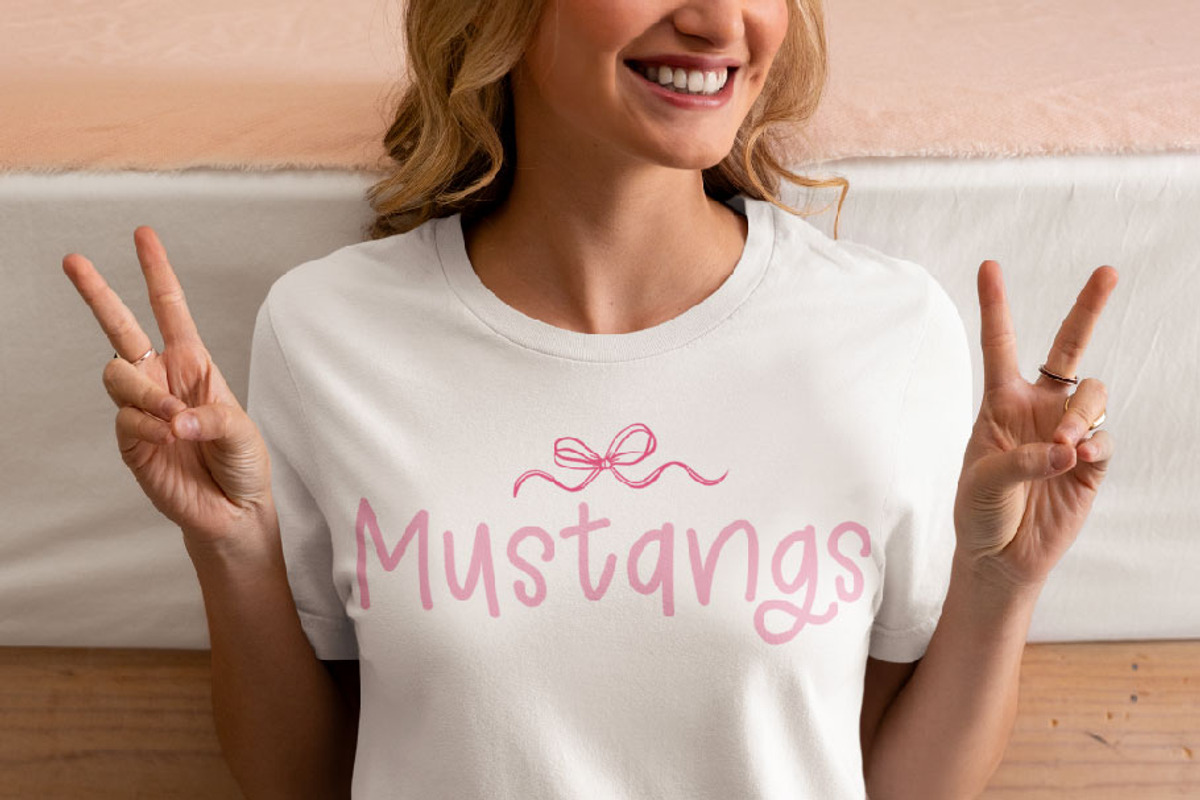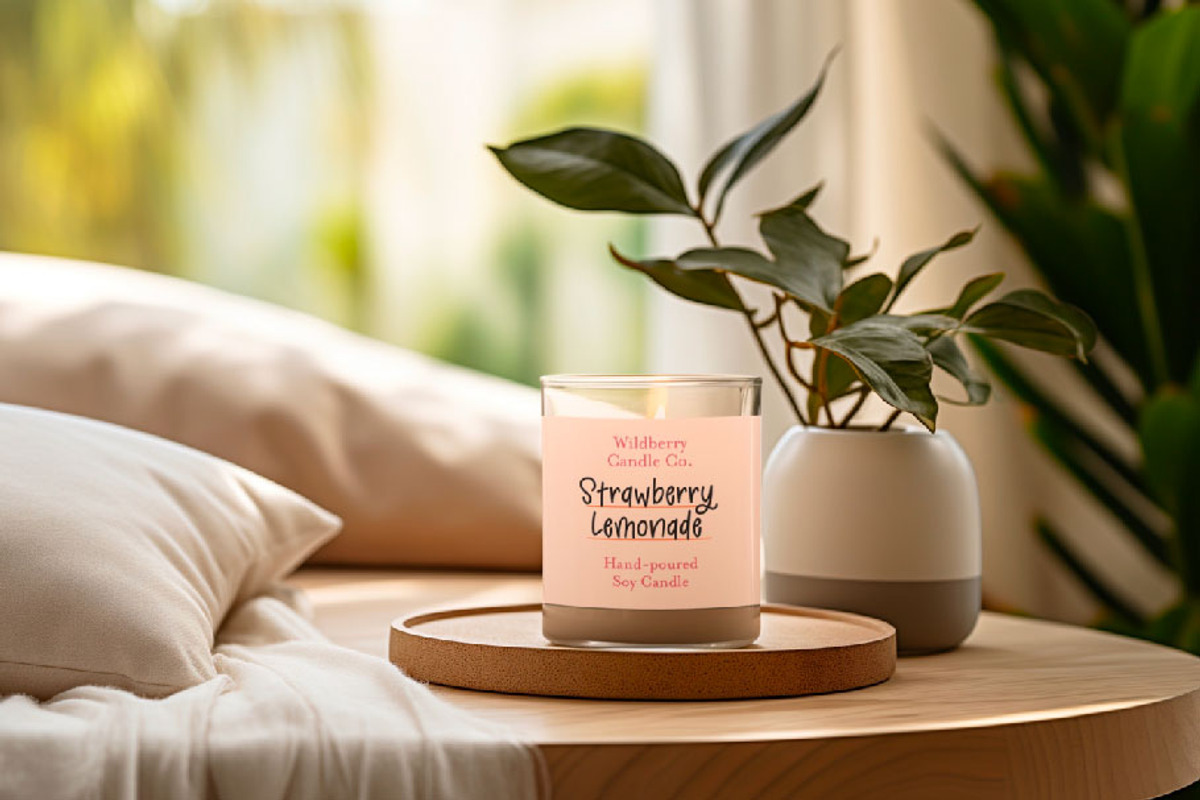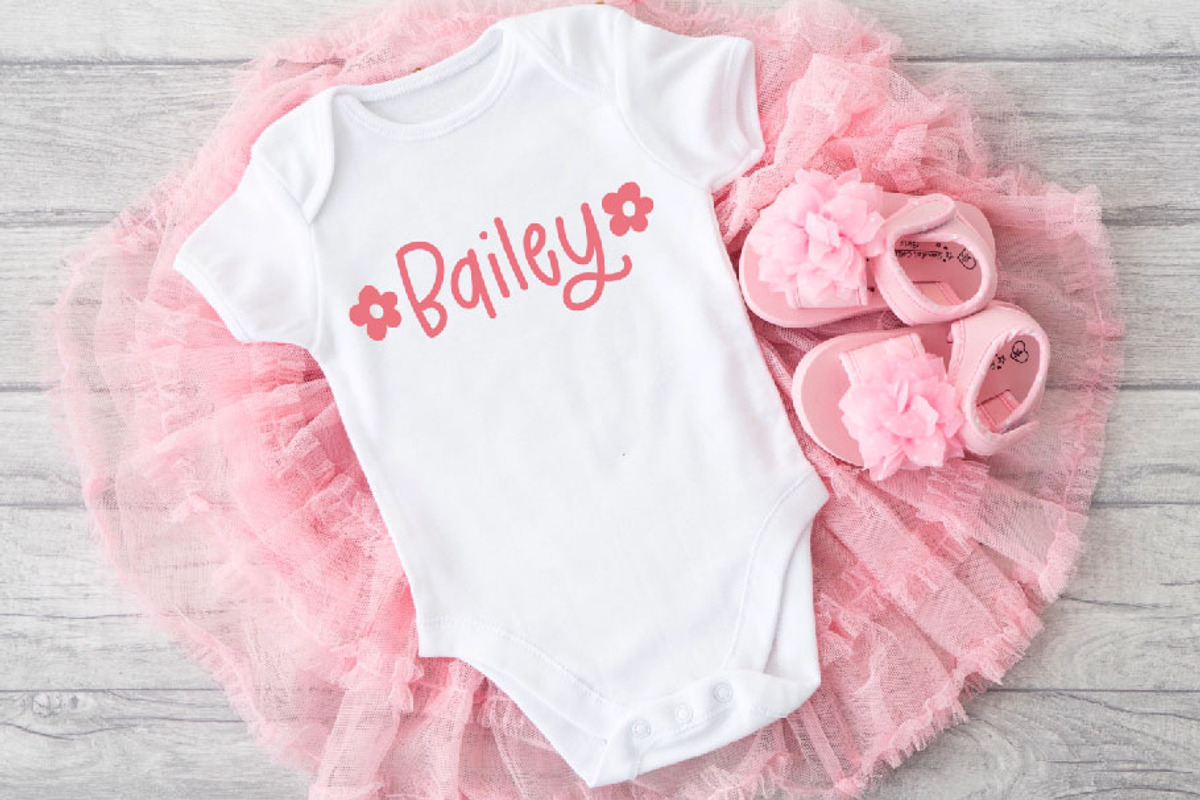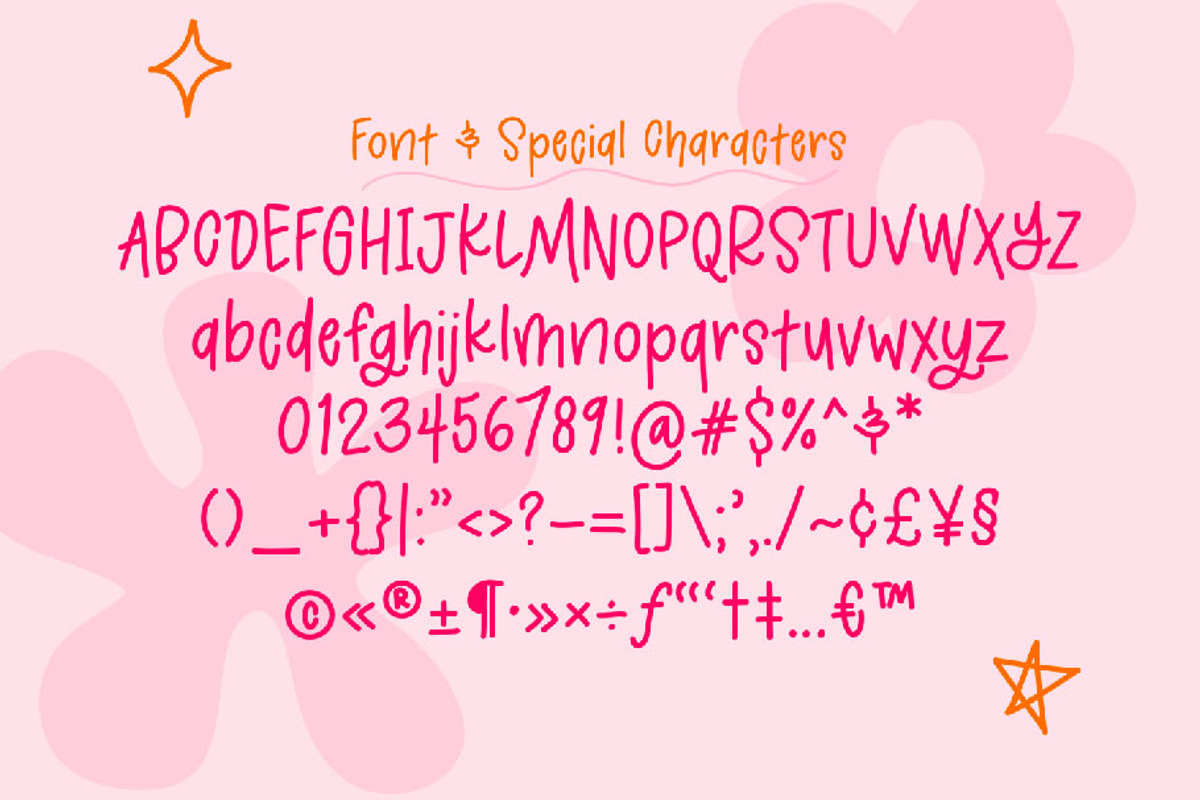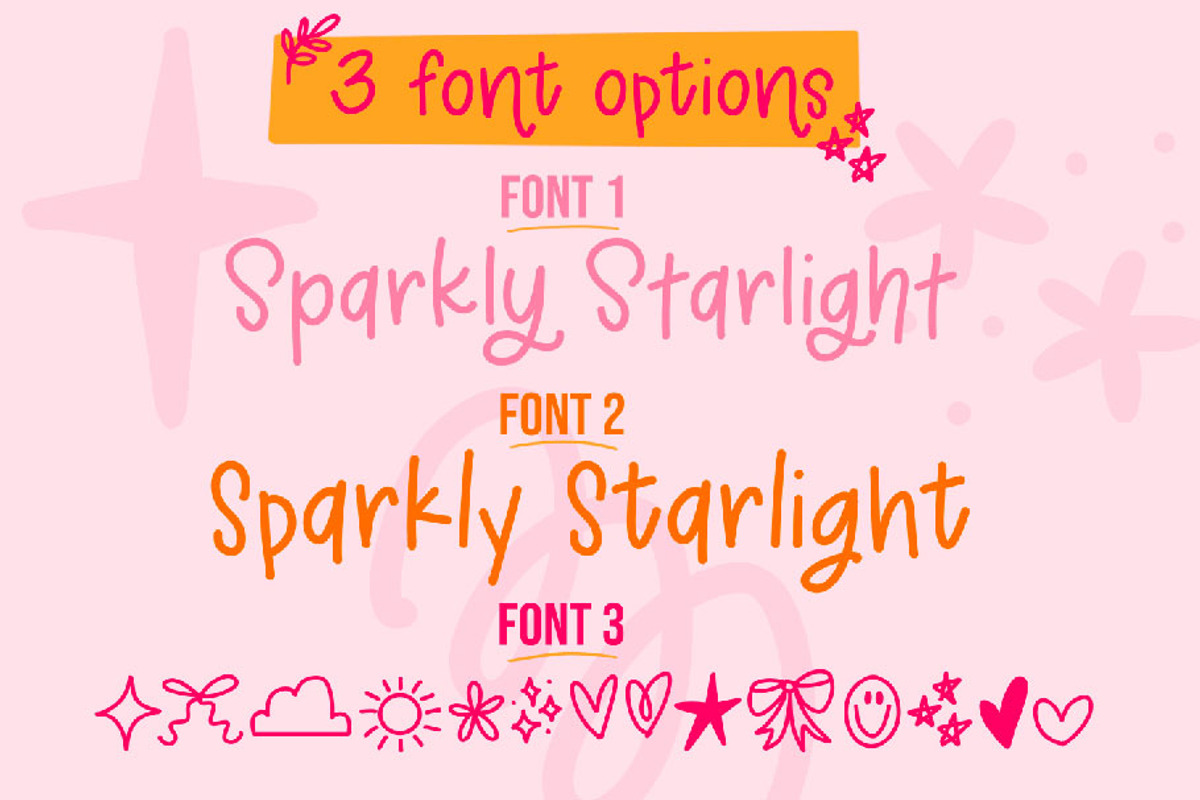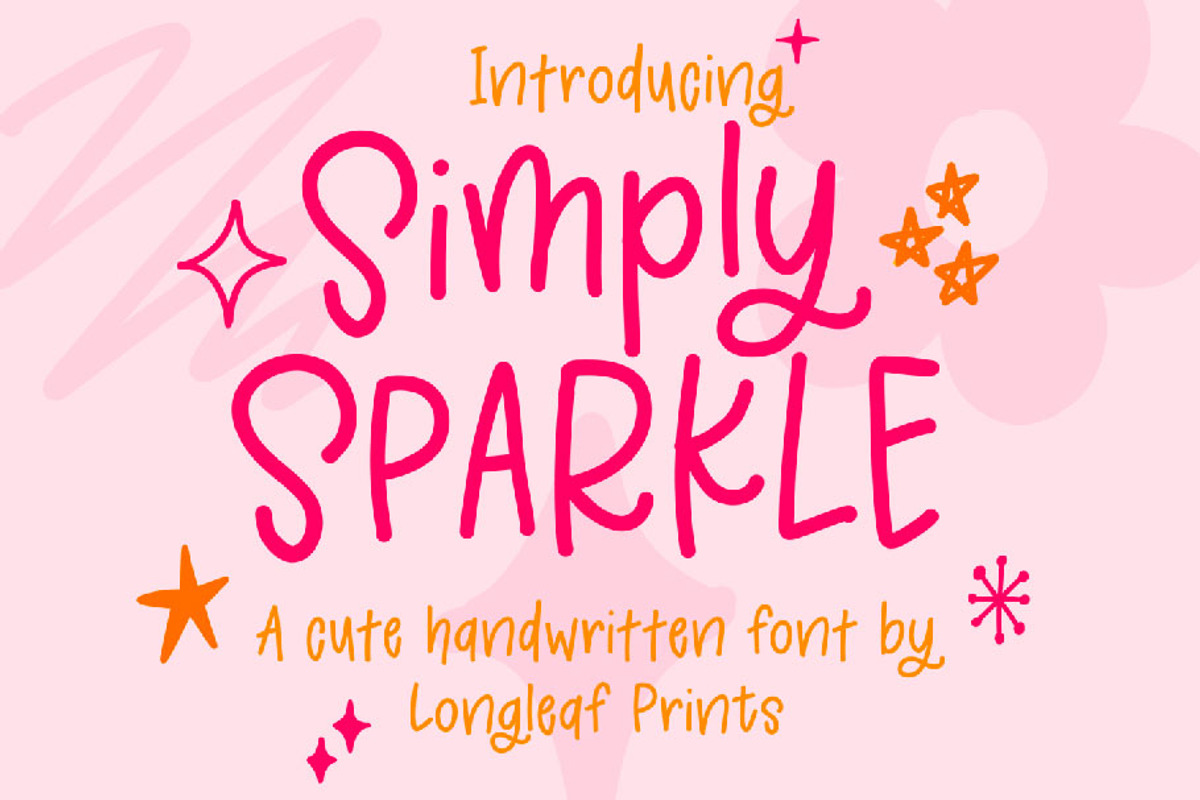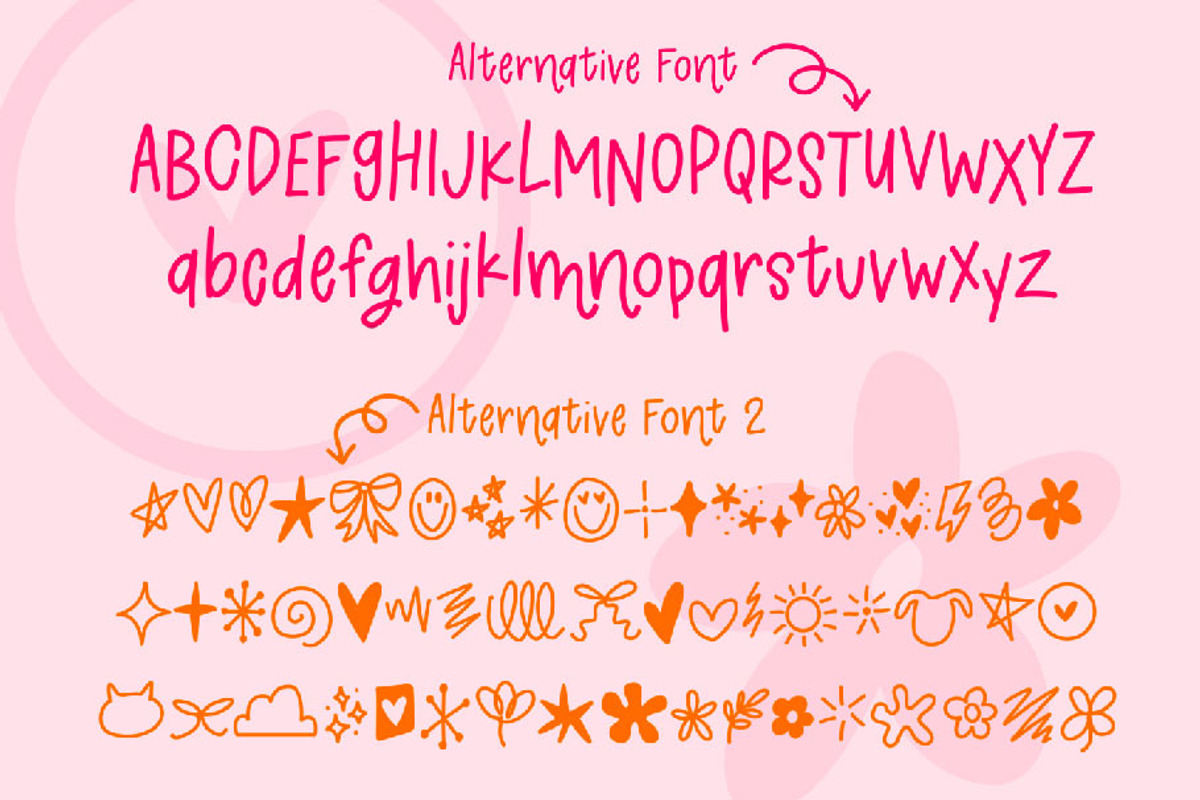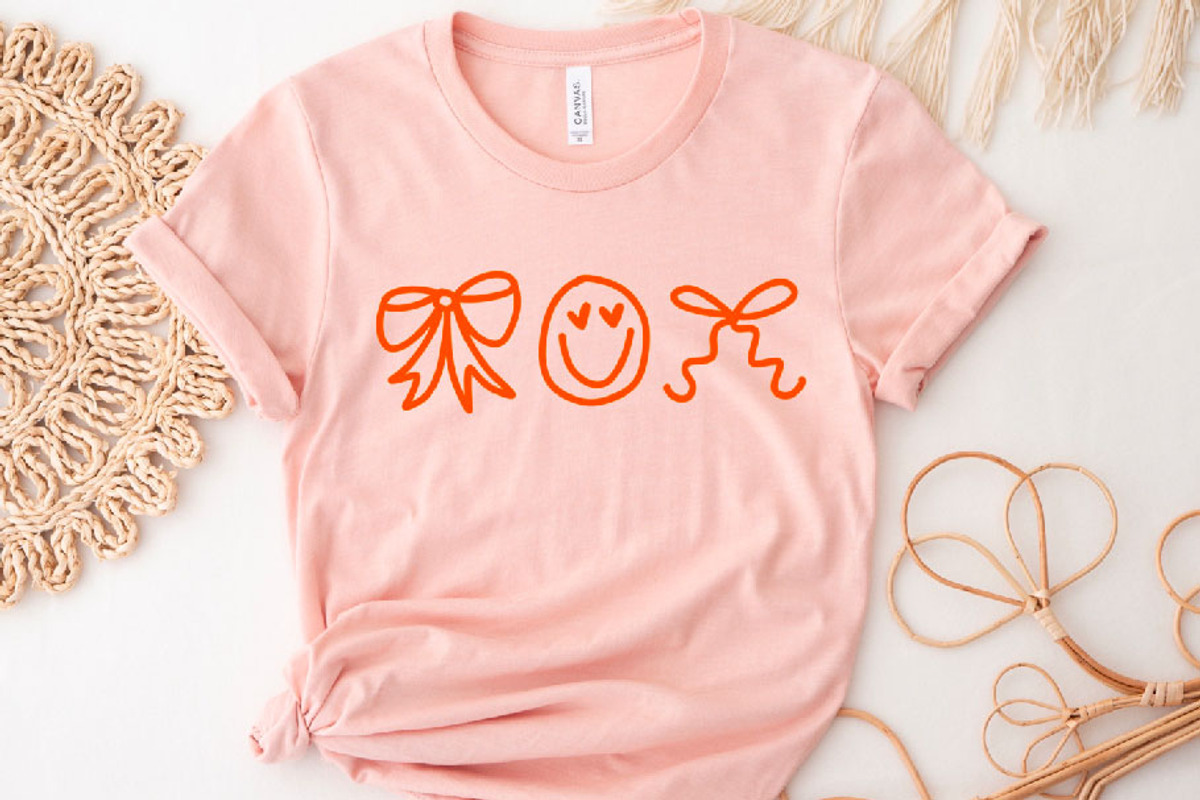
Simply Sparkle Handwritten Font
Simply Sparkle is a handwritten font family that includes two handwritten fonts and one special character doodles font. Perfect for branding, product design, digital products, graphic tees, logos, and more! Mix and match this font family!
Includes
- Simply Sparkle Font - a cute handwritten font
- Simply Sparkle Alternative - a fun alternative to mix and match
- Simply Sparkle Icon - a font made up of fun doodles